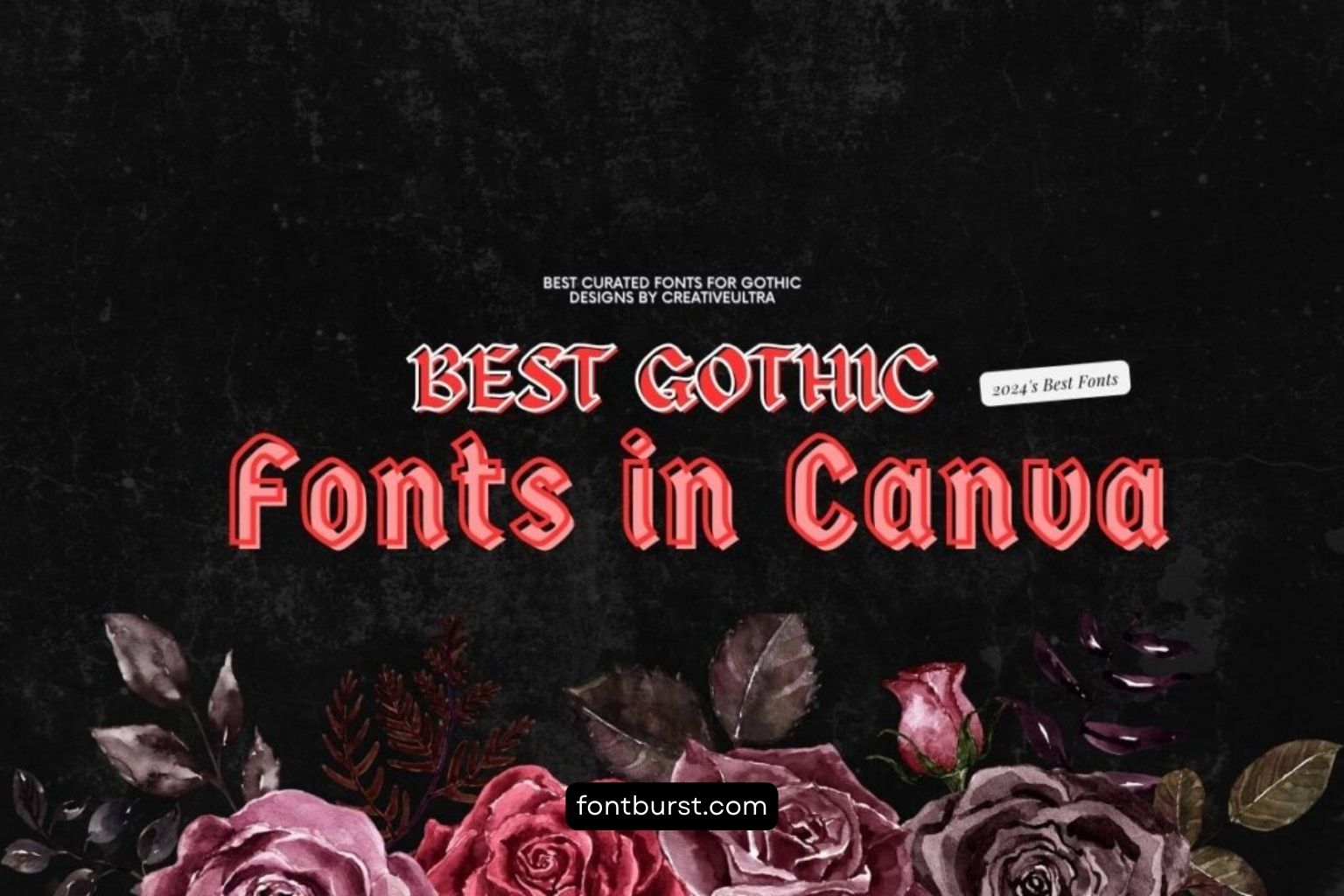
Best Gothic Fonts in Canva for Dramatic Designs
Do you want your designs to stand out with a bold and dark style? Gothic fonts in Canva can give your projects a unique and powerful look. These fonts are perfect for creating striking and memorable designs that grab attention.
Why Use Gothic Fonts?
Gothic fonts have bold and detailed designs. They make your text look mysterious and strong. These fonts are great for posters, book covers, invitations, and any project where you want a dramatic effect. Using Gothic fonts can help your design be noticed and remembered by your audience.
Choosing Gothic Fonts in Canva
When picking Gothic fonts, think about where you will use them and who will see them. Make sure the font is easy to read, even if it looks fancy. Sometimes, mixing a Gothic font with a simpler font can make your design look balanced and clear. This way, your message will be easy to understand, and your design will still look dramatic and interesting.
Top Gothic Fonts in Canva
Here are some of the best Gothic fonts in Canva:
Obra Letra Font
Obra Letra Font is bold and eye-catching, making it perfect for dramatic headlines and titles. Its thick, heavy strokes give it a strong presence that commands attention. Use this font when you want to make a powerful statement with your text, ensuring your message stands out clearly.
Celandine Font
Celandine Font blends elegance with a touch of Gothic flair. It’s great for creating beautiful invitations and decorative text. The delicate curves and ornate details make it perfect for projects that need a touch of sophistication while still keeping a dramatic feel.
Germania One Font
Germania One Font is strong and heavy, ideal for making a bold statement. Its thick lines and Gothic style are perfect for grabbing attention in any design. Whether for headlines or logos, this font adds a sense of power and importance to your text.
Bank Gothic Font
Bank Gothic Font is modern and sleek, offering a professional yet dramatic look. Its clean lines and geometric shapes make it versatile for various design projects. Use it to add a contemporary Gothic touch to your posters, branding, or digital graphics.
Rakkas Font
Rakkas Font stands out with its unique and stylish design. It’s perfect for adding a distinctive character to your designs. The playful yet dramatic strokes make it great for creative projects that need a bit of flair and individuality.
Ravenholm Inline Font
Ravenholm Inline Font is bold with intricate inline details, making it perfect for eye-catching headlines. This font combines strong Gothic elements with a modern twist, making it suitable for both traditional and contemporary designs.
Sackers Gothic Font
Sackers Gothic Font is simple yet strong, providing a clean and dramatic effect. Its straightforward design makes it versatile for many uses, from logos to text overlays on images. It’s a great choice when you need a Gothic touch without overwhelming the design.
Mestizo Font
Mestizo Font combines traditional Gothic elements with modern style, creating a unique look. It’s great for projects that need a blend of old and new, adding character and depth to your text. Use it for anything from branding to editorial design.
Amstrong Font
Amstrong Font is bold and impactful, making it perfect for strong and memorable designs. Its thick strokes and dramatic presence make it ideal for headlines, posters, and any project where you want your text to stand out and be noticed.
Pirata One Font
Pirata One Font is classic and elegant, ideal for creating a timeless Gothic feel. Its traditional blackletter style is perfect for projects that need a historical or vintage touch. Use it for book covers, certificates, or any design that needs a classic Gothic look.
Abibas Font
Abibas Font is playful and bold, adding a fun yet dramatic touch to your designs. Its quirky style is great for creative projects that need a bit of personality. Use it for posters, flyers, and any design where you want to make a unique statement.
Cheddar Gothic Sans Font
Cheddar Gothic Sans Font is simple and versatile, great for both headlines and body text. Its clean, sans-serif style with a Gothic twist makes it suitable for a wide range of projects. Use it to add a subtle Gothic touch without overpowering your design.
Conclusion
The gothic fonts in Canva will give your designs a dramatic and bold look that will make them stand out. You can use these fonts to add a touch of mystery and elegance to posters, book covers, or invitations. Make designs with them that stand out and are easy to remember. People will remember your projects for a long time if you use the right Gothic font.